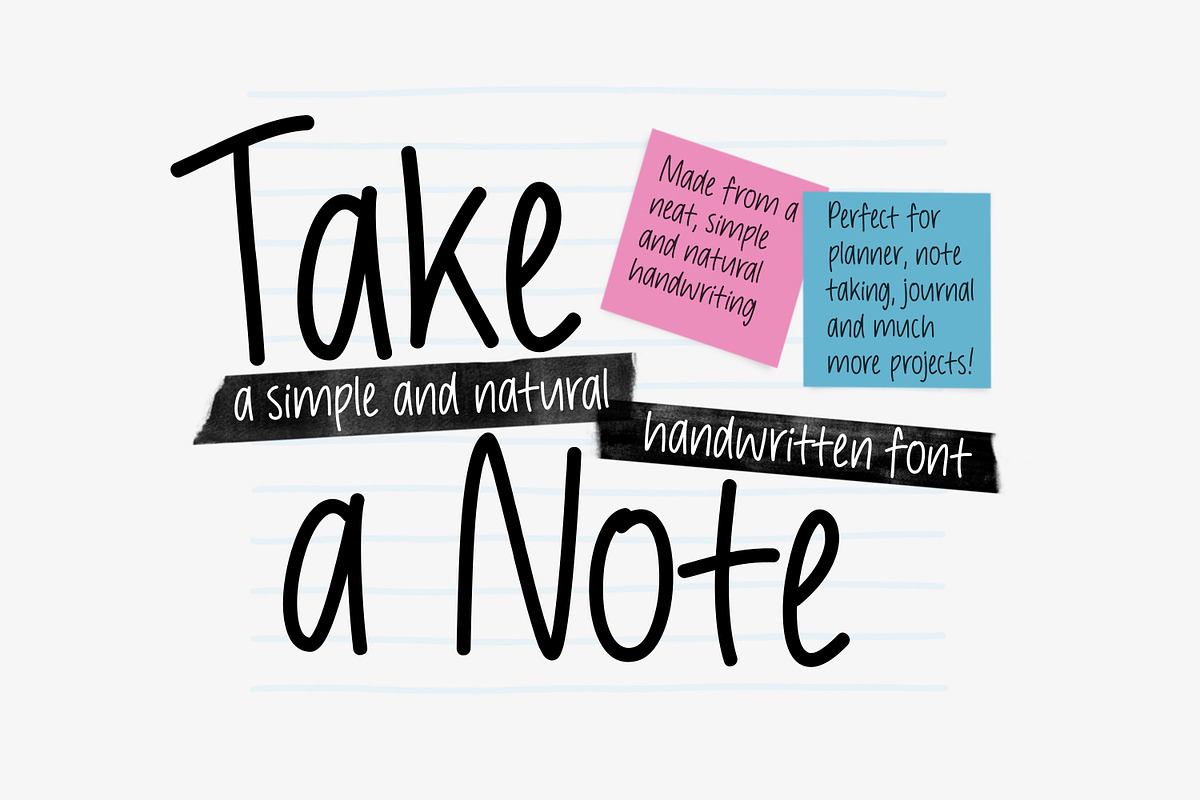
Take a Note Font Free Download is a charming handwritten typeface that captures the feel of natural pen-on-paper writing. With its smooth flow and casual elegance, this font is perfect for journals, planners, classroom materials, quotes, blogs, and personal branding that needs a friendly, human touch.
It’s ideal for projects that aim to feel warm, relatable, and thoughtfully made. Whether you're designing a notepad layout, a motivational graphic, or custom stationery, Take a Note adds authenticity and simplicity. Take a Note Font Free Download allows you to try this handwritten style in personal projects before purchasing a commercial license.
Bring handwriting back into your digital designs with Take a Note — the font that feels like a personal touch in every word.